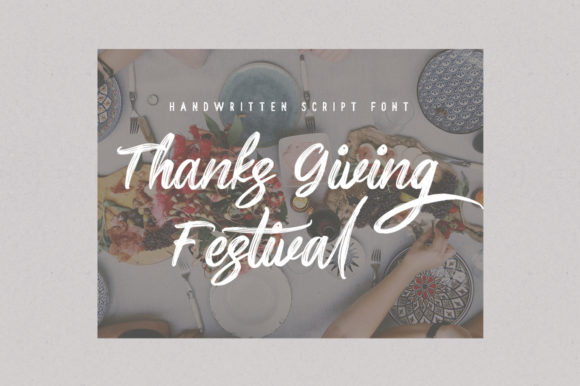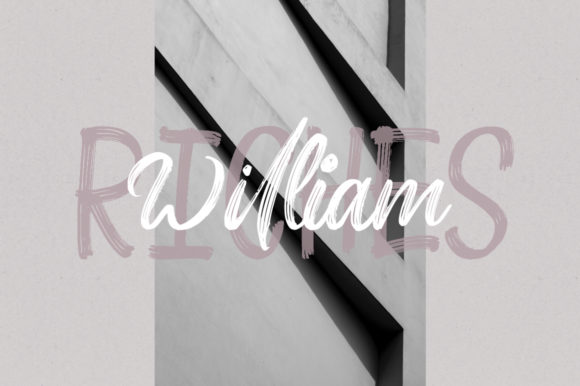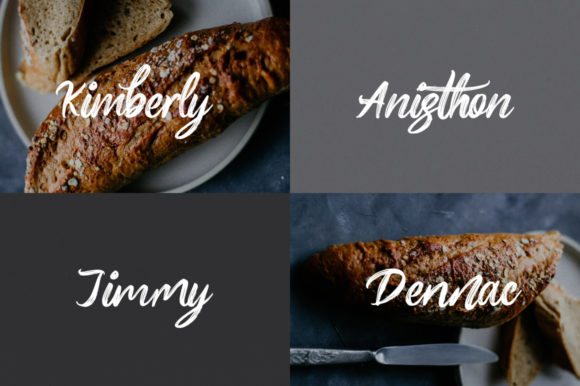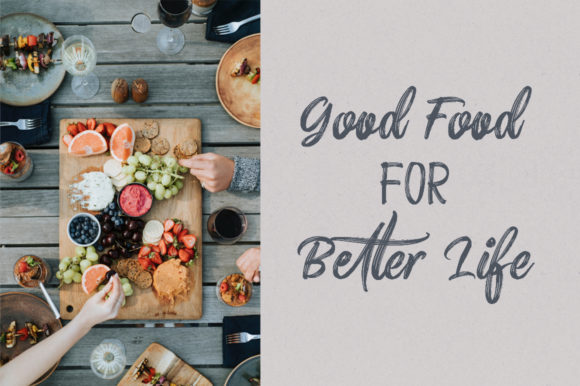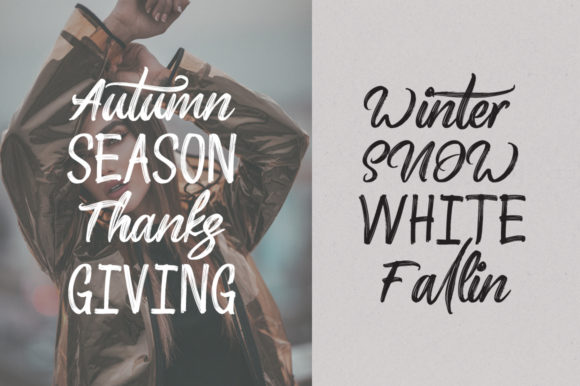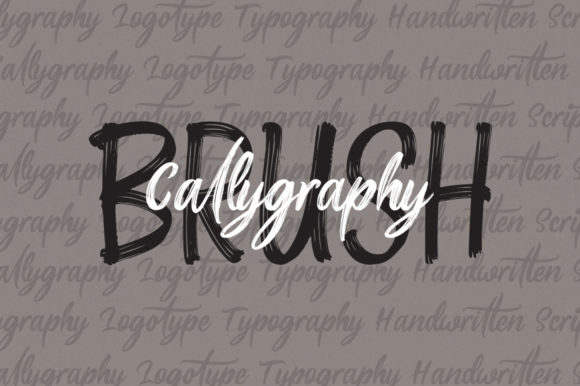
Butterscotch Font: A Friendly and Casual Handwritten Script Font
Are you looking for a font that exudes warmth and friendliness? Look no further than the Butterscotch font! This delightful handwritten script font is perfect for designers and crafters who want to add a touch of personality to their projects. In this article, we’ll take a closer look at the Butterscotch font, its features, and how you can use it to elevate your designs.
What is Butterscotch Font?
Butterscotch is a friendly and casual handwritten script font that’s designed to make your projects feel more approachable and inviting. Its unique, flowing script is reminiscent of handwritten notes and letters, making it perfect for creating a sense of warmth and connection with your audience.
Key Features of Butterscotch Font
- Handwritten Script: Butterscotch font features a beautiful, handwritten script that’s perfect for creating a personal touch in your designs.
- Friendly and Casual: This font is designed to be friendly and casual, making it perfect for projects that require a approachable tone.
- Unique Letterforms: Butterscotch font features unique letterforms that are carefully crafted to create a sense of flow and continuity.
- Easy to Read: Despite its handwritten nature, Butterscotch font is surprisingly easy to read, making it perfect for body text and headings.
How to Use Butterscotch Font in Your Designs
Butterscotch font is incredibly versatile and can be used in a variety of design projects, including:
- Branding and Packaging: Use Butterscotch font to create custom logos, labels, and packaging that stands out from the crowd.
- Stationery and Invitations: Add a personal touch to your stationery, invitations, and greeting cards with Butterscotch font.
- Web Design: Use Butterscotch font to create a friendly and approachable tone on your website, perfect for blogs, portfolios, and e-commerce sites.
- Crafting and Scrapbooking: Butterscotch font is perfect for crafters and scrapbookers who want to add a personal touch to their projects.
Tips for Using Butterscotch Font Effectively
Here are some tips for using Butterscotch font effectively in your designs:
- Pair with Other Fonts: Butterscotch font pairs well with other fonts, especially sans-serif fonts like Arial or Helvetica. Experiment with different combinations to find the perfect pairing.
- Use for Headings and Titles: Butterscotch font is perfect for headings and titles, where its unique letterforms can really shine.
- Experiment with Colors: Butterscotch font looks great in a variety of colors, from bright and bold to soft and pastel. Experiment with different colors to find the perfect fit for your design.
In conclusion, Butterscotch font is a friendly and casual handwritten script font that’s perfect for designers and crafters who want to add a touch of personality to their projects. With its unique letterforms, easy readability, and versatility, Butterscotch font is sure to become a favorite in your design toolkit. So why not give it a try and see how it can inspire your next design project?
Get Inspired by Butterscotch Font
Butterscotch font is more than just a font – it’s a way to add a touch of warmth and personality to your designs. Whether you’re a designer, crafter, or DIY enthusiast, Butterscotch font is sure to inspire you to create something truly special. So go ahead, get creative, and see what amazing things you can create with Butterscotch font!